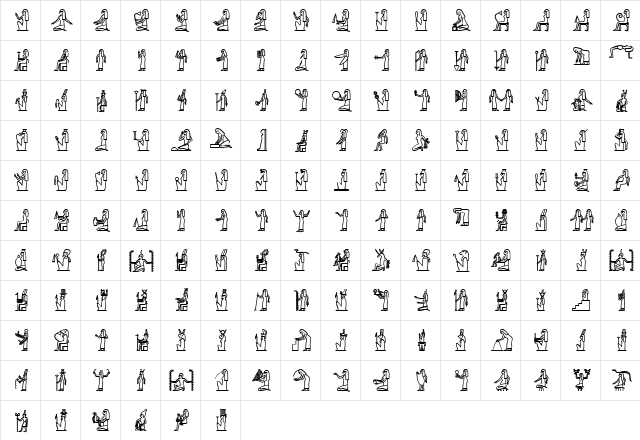
GlyphExtLibD Bold
Design Context for GlyphExtLibD Typeface
GlyphExtLibD is a composed and adaptable typeface that performs quietly and consistently across a wide range of design contexts. The heavy weight commands attention and anchors typographic hierarchies.